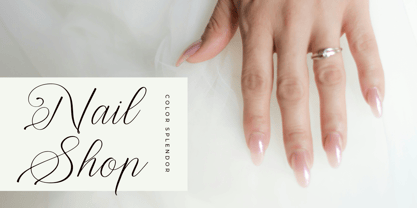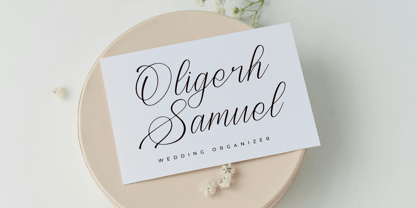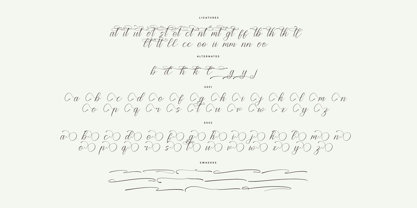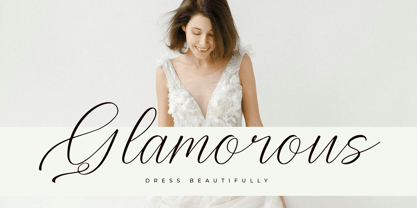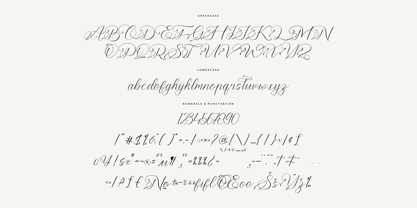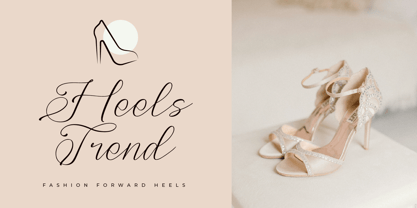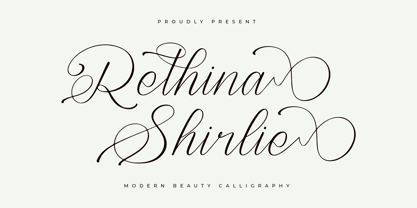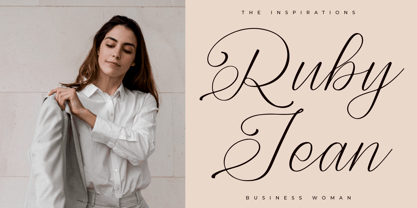
Rethina Shirlie
The Rethina Shirlie Font Family was designed by Heru Utama Putra and published by Letterena Studios. Rethina Shirlie contains 2 styles and family package options.
Rethina Shirlie – Modern Beauty Calligraphy , from Letterena, is a Luxury Script font, suitable for any projects such as: logos, branding projects, homeware designs, product packaging, mugs, quotes, posters, shopping bags, t-shirts, book covers, name card, invitation cards, greeting cards, label, photography, watermark, special events, and all your other luxury and beautiful projects that need a Luxury Script taste.